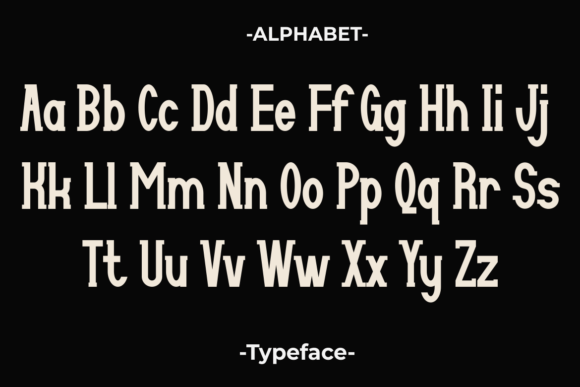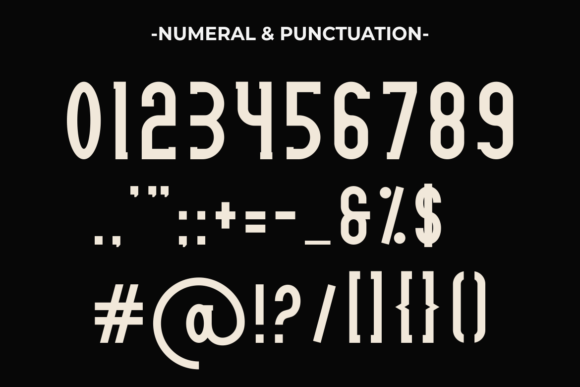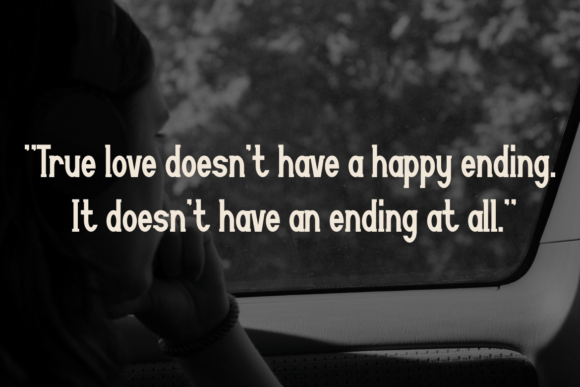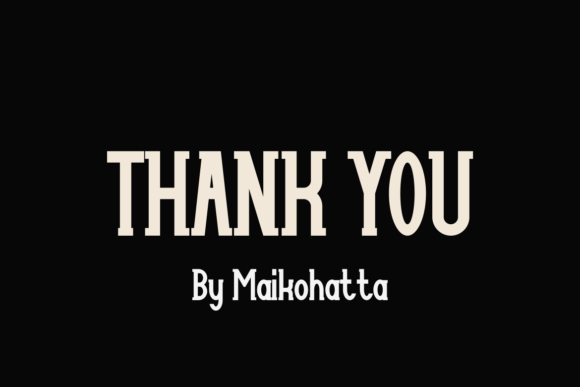
The Designer’s Delight: Unleashing the Power of Eloening Font
Eloening Font: A Bold and Authentic Serif
Eloening is a bold and authentic serif font that’s suitable for any branding project, from logos and T-shirt printing to esports and more. Its versatility and range make it an excellent addition to any designer’s toolkit. With Eloening, you can create extraordinary work that’s sure to leave a lasting impression.
Honest Review: The Good and the Great
So, what makes Eloening Font so special? Here are a few things I love about this amazing font:
- ✅ Bold and authentic: Eloening’s serif design exudes confidence and sophistication, making it perfect for logos, headlines, and titles.
- ✨ Highly versatile: This font shines in a wide range of contexts, from digital platforms to print materials.
- 🔥 Attention-grabbing: Eloening’s bold design ensures your work will stand out in a crowded design landscape.
While Eloening Font is an excellent choice, it’s not without its quirks. Here are a few things to keep in mind:
- 🤔 Limited use in body text: Due to its bold design, Eloening may not be the best choice for lengthy body text. Instead, opt for a complementary font for easier reading.
- ⚠️ Glyph support: While Eloening has an impressive range of glyphs, some characters may not be supported. Be sure to test the font with your specific design needs.
The Story Behind Eloening Font
Eloening Font was designed with the goal of creating a bold and authentic serif font that would meet the needs of modern designers. Inspired by classic typography and modern design trends, Eloening’s creator aimed to craft a font that would be both versatile and eye-catching.
| Font Name | Eloening Font |
| Author | maikofarazhatta |
| What is Eloening Font best suited for? | Eloening Font is ideal for logos, headlines, titles, and any design project that requires a bold and authentic serif font. |
| Does Eloening Font support OpenType features? | Yes, Eloening Font supports OpenType features, including stylistic alternates, ligatures, and swashes. |
| Can I use Eloening Font in both digital and print designs? | Absolutely! Eloening Font is versatile and can be used in a wide range of design applications, from digital platforms to print materials. |